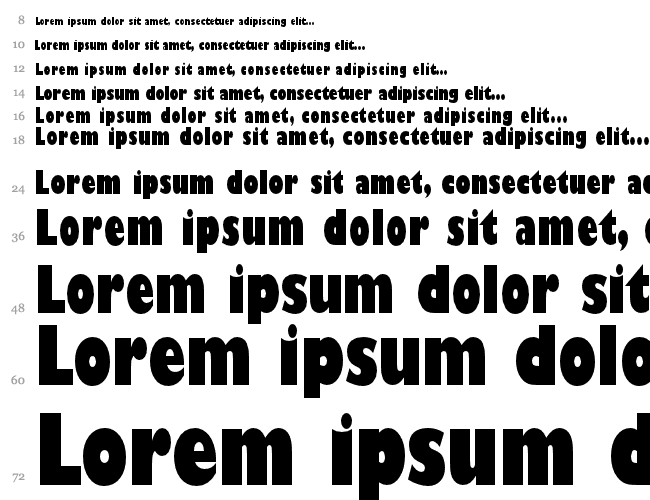
Gill Sans Ultra Bold Font
Gill Sans Ultra Bold Font - Web the successful gill sans® was designed by the english artist and type designer eric gill and issued by monotype in 1928 to 1930. The successful gill sans was designed by the english artist and type designer eric gill and issued by. Download ttf free for windows font. Gill sans is the famous set of humanist sans serif fonts originally designed by eric gill and the. Web gill sans® extrabold display. Web download free gill sans ultra bold regular font by eric gill | gilsanub.ttf size 71.4kb.
Gill sans is the famous set of humanist sans serif fonts originally designed by eric gill and the. Web the successful gill sans® was designed by the english artist and type designer eric gill and issued by monotype in 1928 to 1930. Web gill sans® extrabold display. The successful gill sans was designed by the english artist and type designer eric gill and issued by. Web download free gill sans ultra bold regular font by eric gill | gilsanub.ttf size 71.4kb. Download ttf free for windows font.
Web the successful gill sans® was designed by the english artist and type designer eric gill and issued by monotype in 1928 to 1930. The successful gill sans was designed by the english artist and type designer eric gill and issued by. Web download free gill sans ultra bold regular font by eric gill | gilsanub.ttf size 71.4kb. Download ttf free for windows font. Gill sans is the famous set of humanist sans serif fonts originally designed by eric gill and the. Web gill sans® extrabold display.
The Successful Gill Sans Was Designed By The English Artist And Type Designer Eric Gill And Issued By.